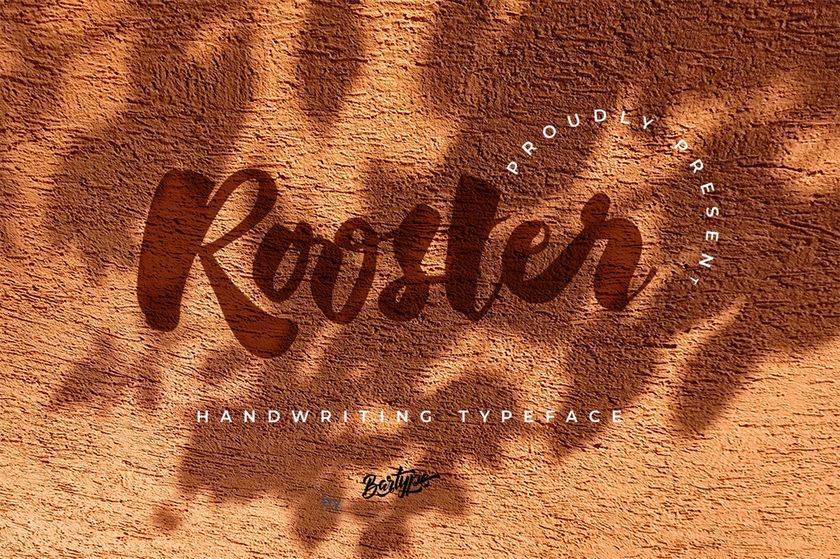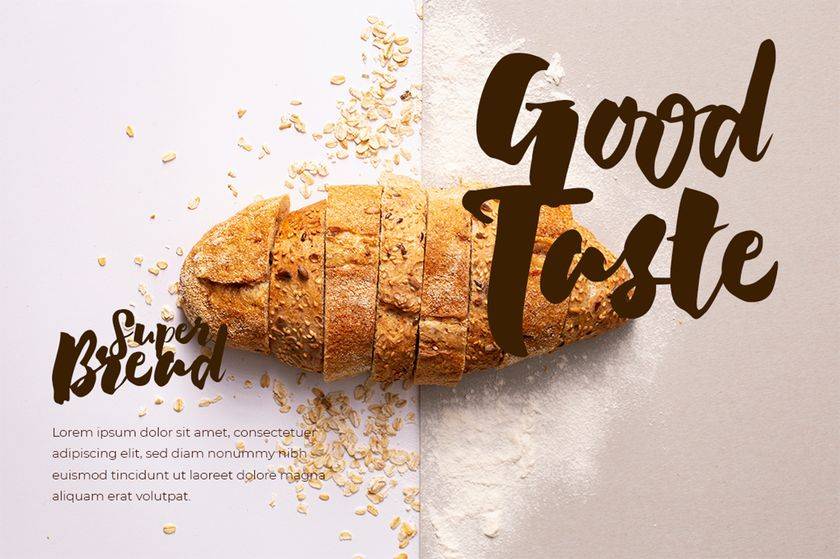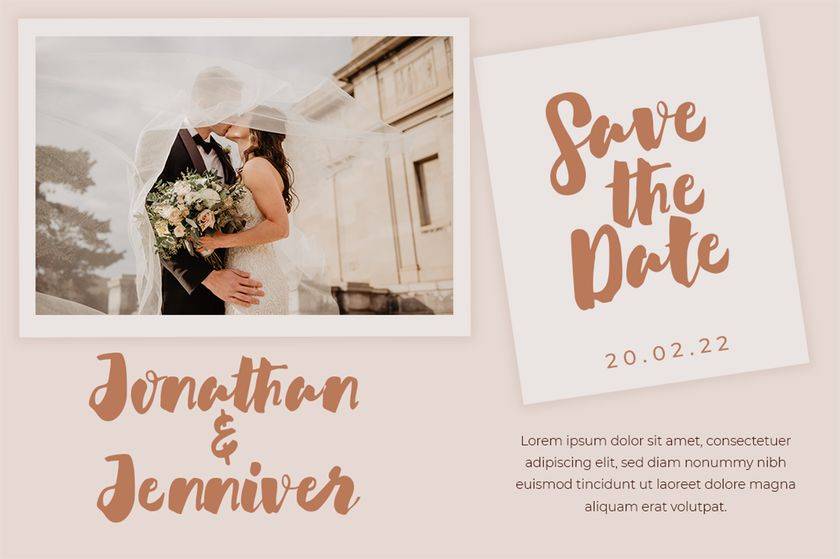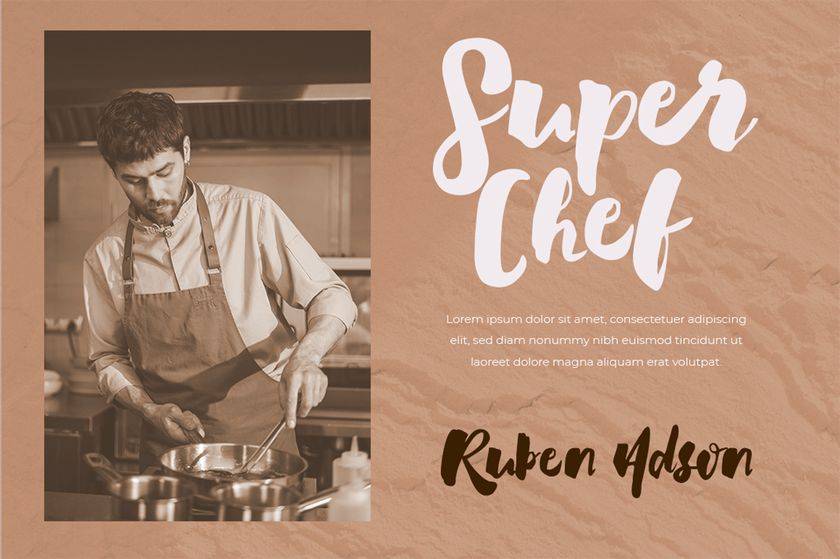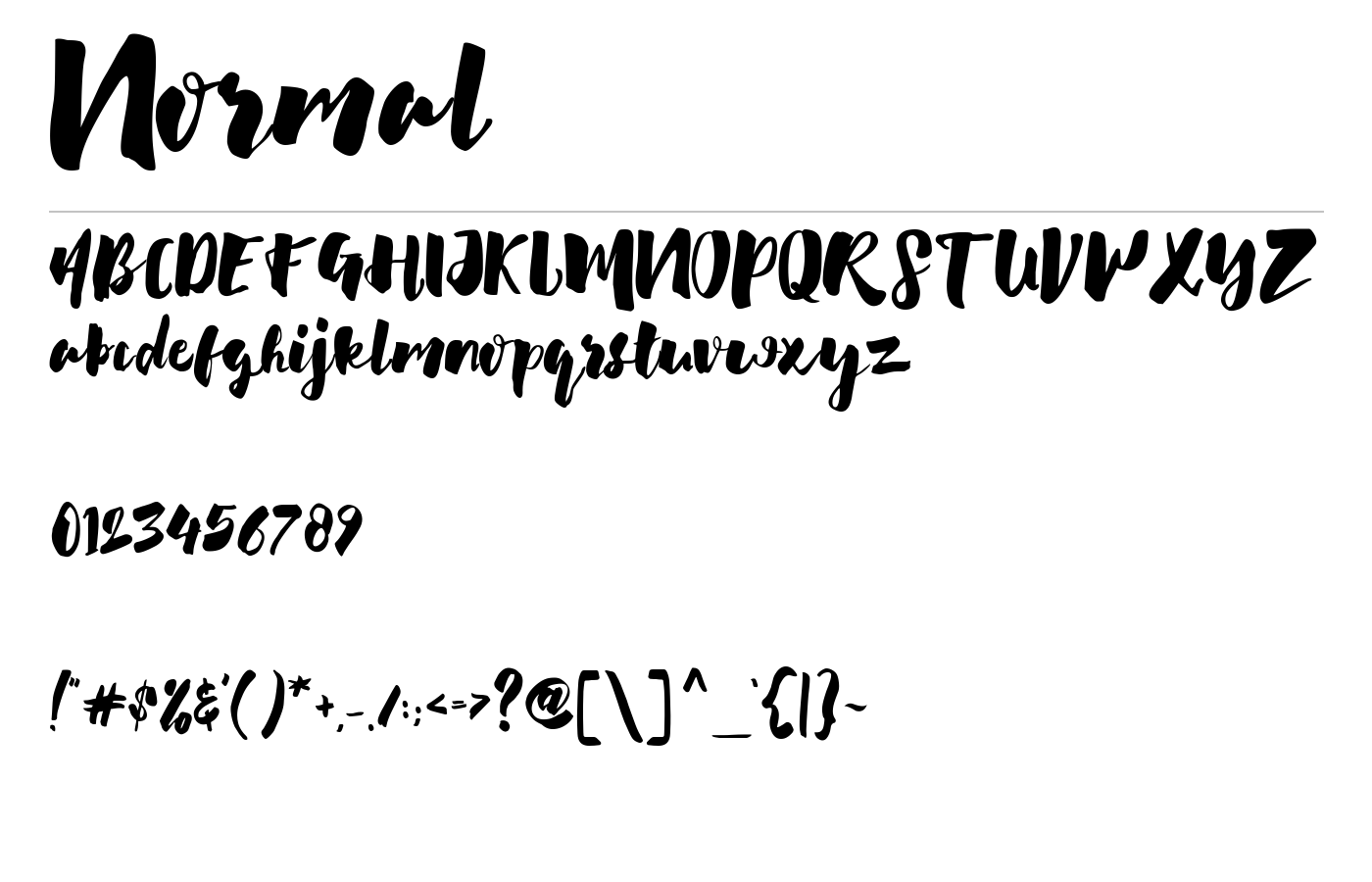
Rooster Font is a bold, energetic script typeface with a strong hand-painted feel, featuring thick strokes and slightly irregular shapes that add a lively, authentic touch. Its casual yet confident style makes it perfect for creative branding, packaging, and headlines where a friendly and dynamic personality is desired. This font works well in designs that want to convey warmth, creativity, and a handcrafted vibe.
Rooster Font
About Rooster Font
| Font family | Rooster Font |